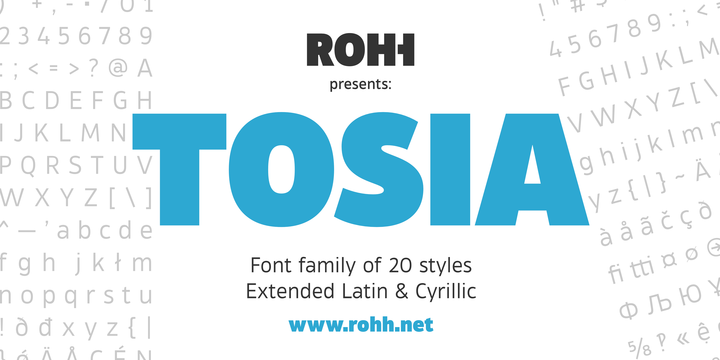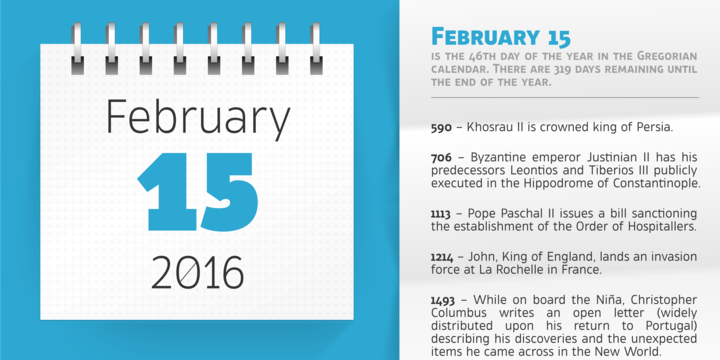
Tosia Font Family
Tosia is a modern, geometric, clean, elegant and versatile font family designed with neutrality, beautiful proportion and excellent legibility in mind.
This professional, contemporary sans serif has slightly condensed dimensions, which make it a great typeface for situations, where space saving is needed.